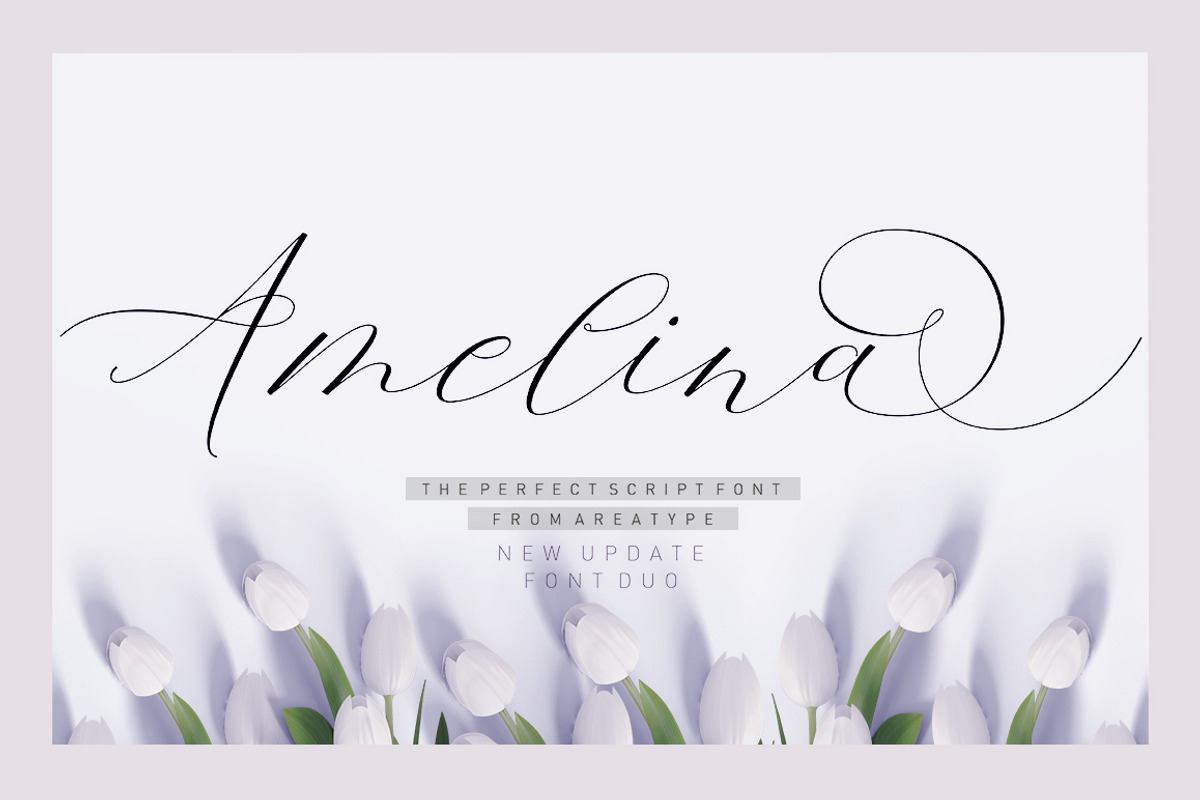
Amelina Script New Update Font Duo Free Download is a beautifully balanced typeface pair that combines an elegant script with a clean sans-serif companion. Perfect for branding, wedding invitations, product labels, and social media graphics, this updated duo brings a fresh, modern feel with a touch of timeless romance.
Amelina Script New Update Font Duo Free Download allows you to effortlessly pair handwritten charm with minimalist structure, giving your designs both personality and professionalism. Whether you're creating a logo or designing heartfelt stationery, this font duo adds versatility and style. Download it today and explore the creative harmony of Amelina in your next project.